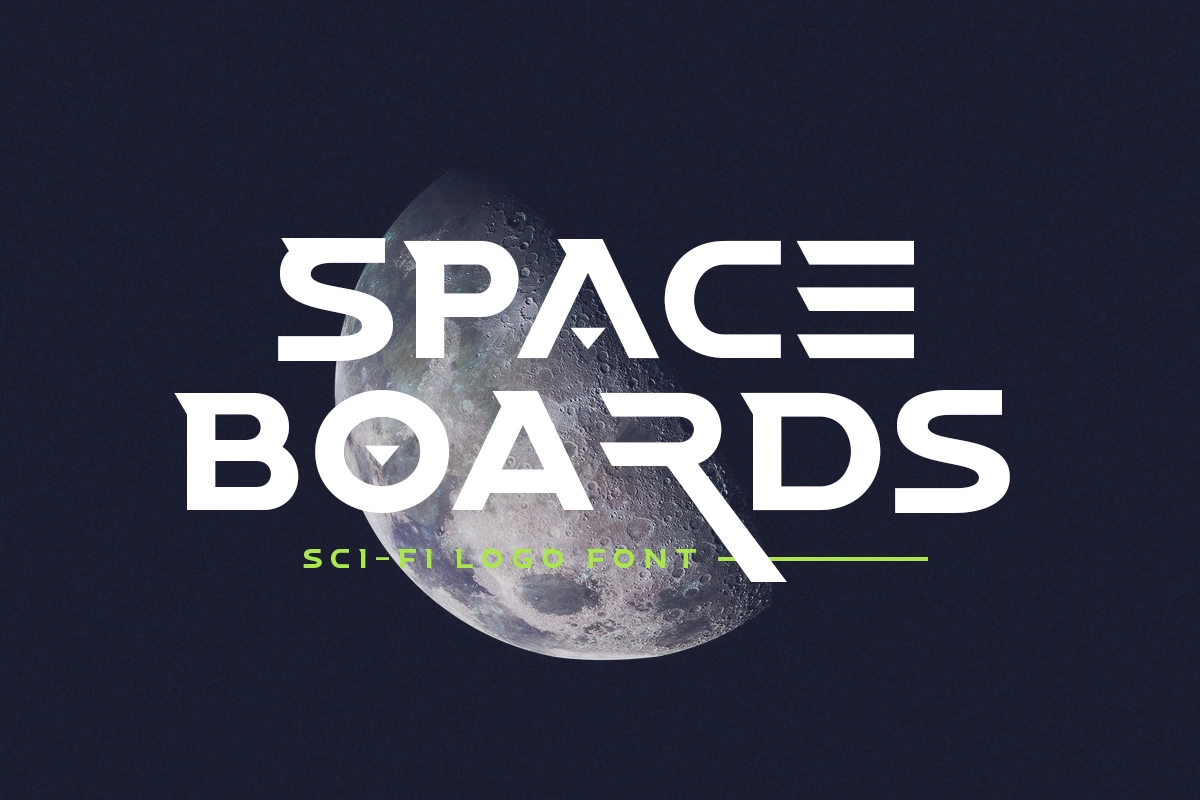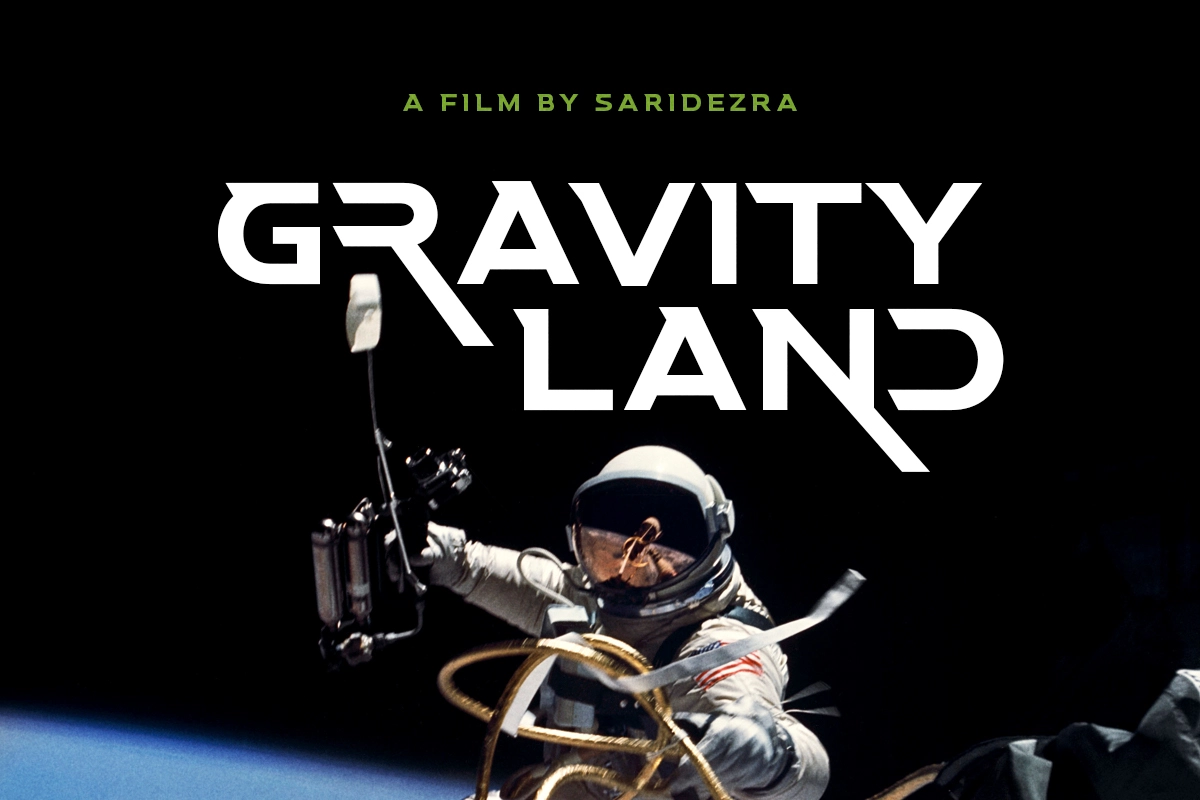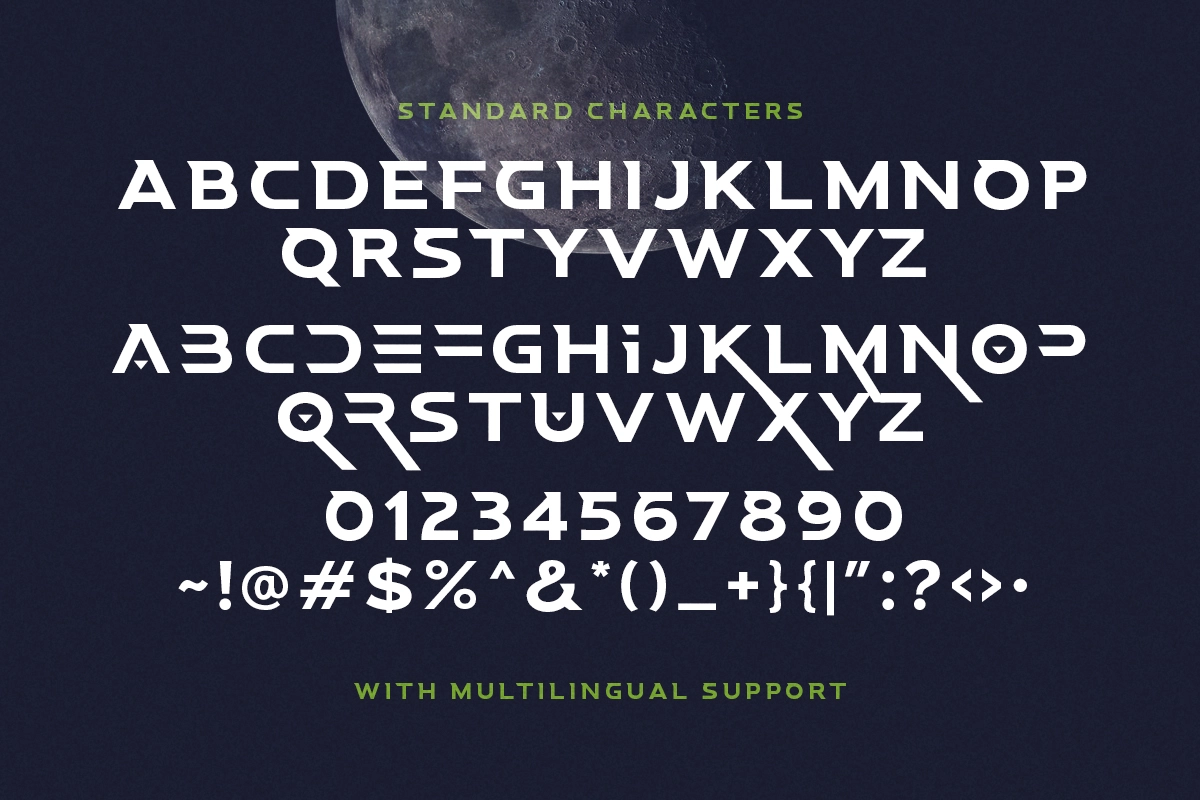
Space Boards - Sci-Fi Logo Font
Space Boards – Sci-Fi Logo Font is a futuristic sans-based typeface designed to bring a high-tech and cinematic feel to your projects. With its distinctive uppercase and lowercase letterforms, this font creates a bold sci-fi atmosphere perfect for modern branding and digital design.
Built for impact, Space Boards works exceptionally well for technology logos, gaming identities, sci-fi movie posters, esports graphics, website headers, and futuristic packaging. The creative contrast between uppercase and lowercase characters allows you to mix and match styles, giving your logotypes a unique and standout appearance.
Clean, sharp, and forward-looking, this typeface captures the spirit of space exploration and advanced technology. Plus, with multilingual support, it’s ready for global projects.
- Futuristic sci-fi sans serif style
- Unique uppercase & lowercase characters
- Numerals and punctuation included
- Ideal for logos and hi-tech branding
- Perfect for movie posters and gaming design
- Strong geometric and modern letterforms